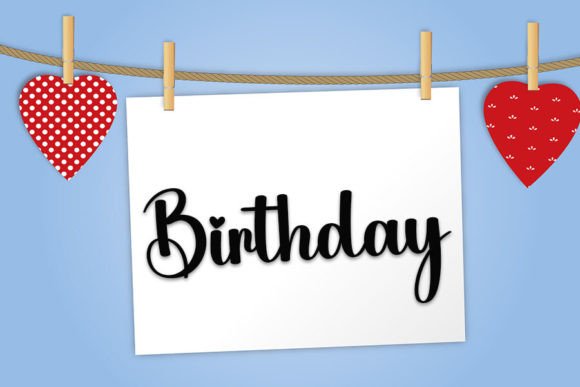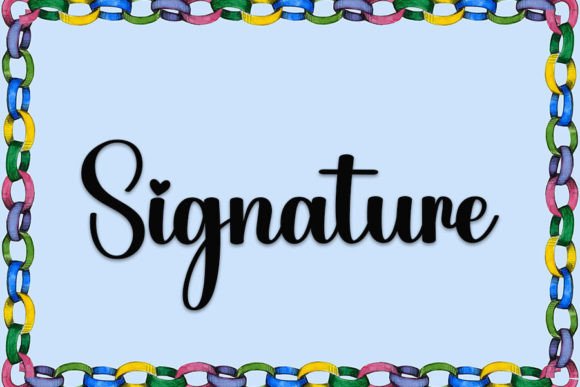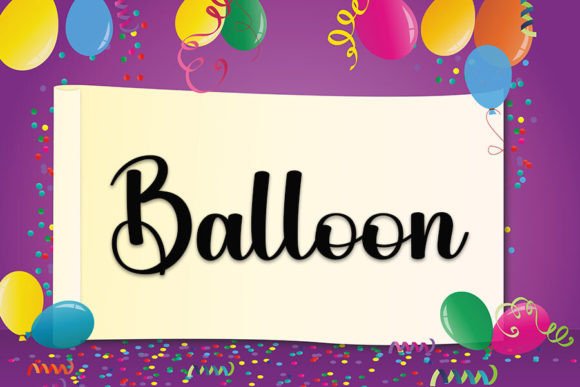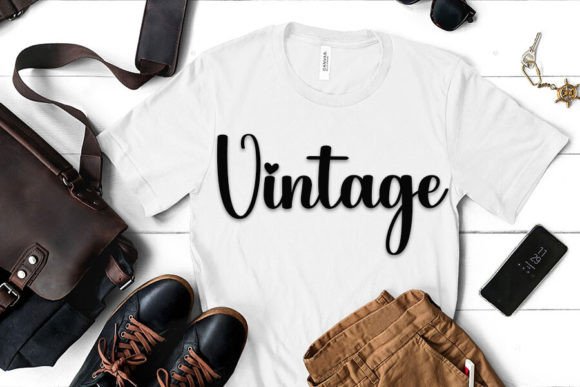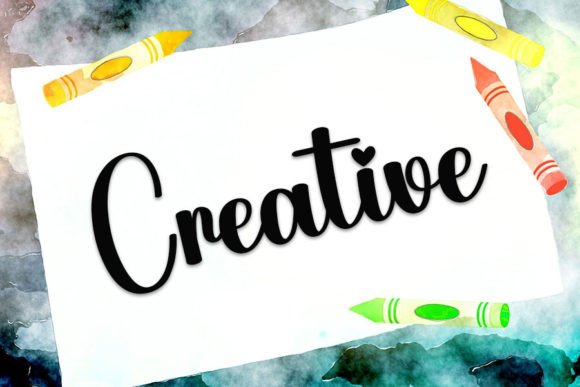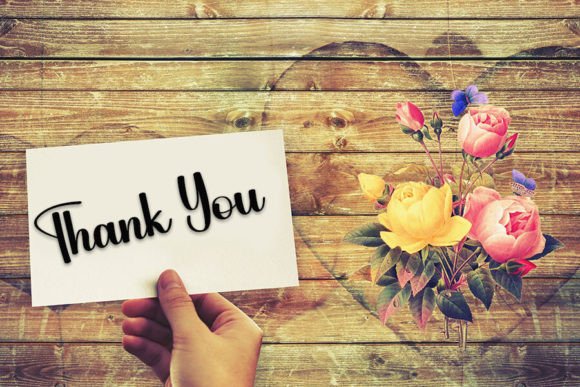
Bakery Font: Elevate Your Designs with Elegance and Timeless Style
Are you on the lookout for a font that can add a touch of sophistication and elegance to your designs? Look no further than the Bakery Font, a stunning handwritten font that is sure to capture your heart. With its unique and timeless style, this font is perfect for designers and crafters who want to create spectacular designs that stand out from the crowd.
What is Bakery Font?
Bakery Font is a beautiful handwritten font that boasts an elegant touch, making it perfect for a wide range of projects. Whether you’re working on a logo, branding materials, or marketing collateral, this font is sure to impress. Its incredibly distinct style is what sets it apart from other fonts, making it a must-have for designers who want to create unique and eye-catching designs.
Key Features of Bakery Font
- Handwritten style: Bakery Font is a handwritten font that has a personal and human touch, making it perfect for designs that require a touch of elegance and sophistication.
- Elegant touch: The font’s elegant touch makes it perfect for designs that require a high level of sophistication, such as luxury brands, wedding designs, and high-end marketing materials.
- Timeless style: Bakery Font has a timeless style that will never go out of fashion, making it a great investment for designers who want to create designs that will stand the test of time.
- Distinct style: The font’s incredibly distinct style makes it perfect for designers who want to create unique and eye-catching designs that stand out from the crowd.
Why Choose Bakery Font?
There are many reasons why designers and crafters should choose Bakery Font for their designs. Here are just a few:
- Versatility: Bakery Font is a versatile font that can be used for a wide range of projects, from logos and branding materials to marketing collateral and wedding designs.
- High-quality design: Bakery Font is a high-quality font that has been designed with precision and attention to detail, making it perfect for designers who want to create professional-looking designs.
Design Ideas Using Bakery Font
Bakery Font is a versatile font that can be used for a wide range of design projects. Here are just a few ideas to get you started:
- Logos and branding materials: Use Bakery Font to create a unique and eye-catching logo for your business or brand.
- Wedding designs: The font’s elegant touch makes it perfect for wedding designs, such as wedding invitations, save-the-date cards, and wedding stationery.
- Marketing collateral: Use Bakery Font to create professional-looking marketing materials, such as brochures, flyers, and business cards.
- Social media graphics: The font’s unique style makes it perfect for social media graphics, such as Facebook posts, Instagram stories, and Twitter headers.
In conclusion, Bakery Font is a stunning handwritten font that is perfect for designers and crafters who want to create spectacular designs. With its elegant touch, timeless style, and incredibly distinct style, this font is sure to capture your heart. Whether you’re working on a logo, branding materials, or marketing collateral, Bakery Font is a great choice. So why wait? Download Bakery Font today and start creating stunning designs that will leave a lasting impression!